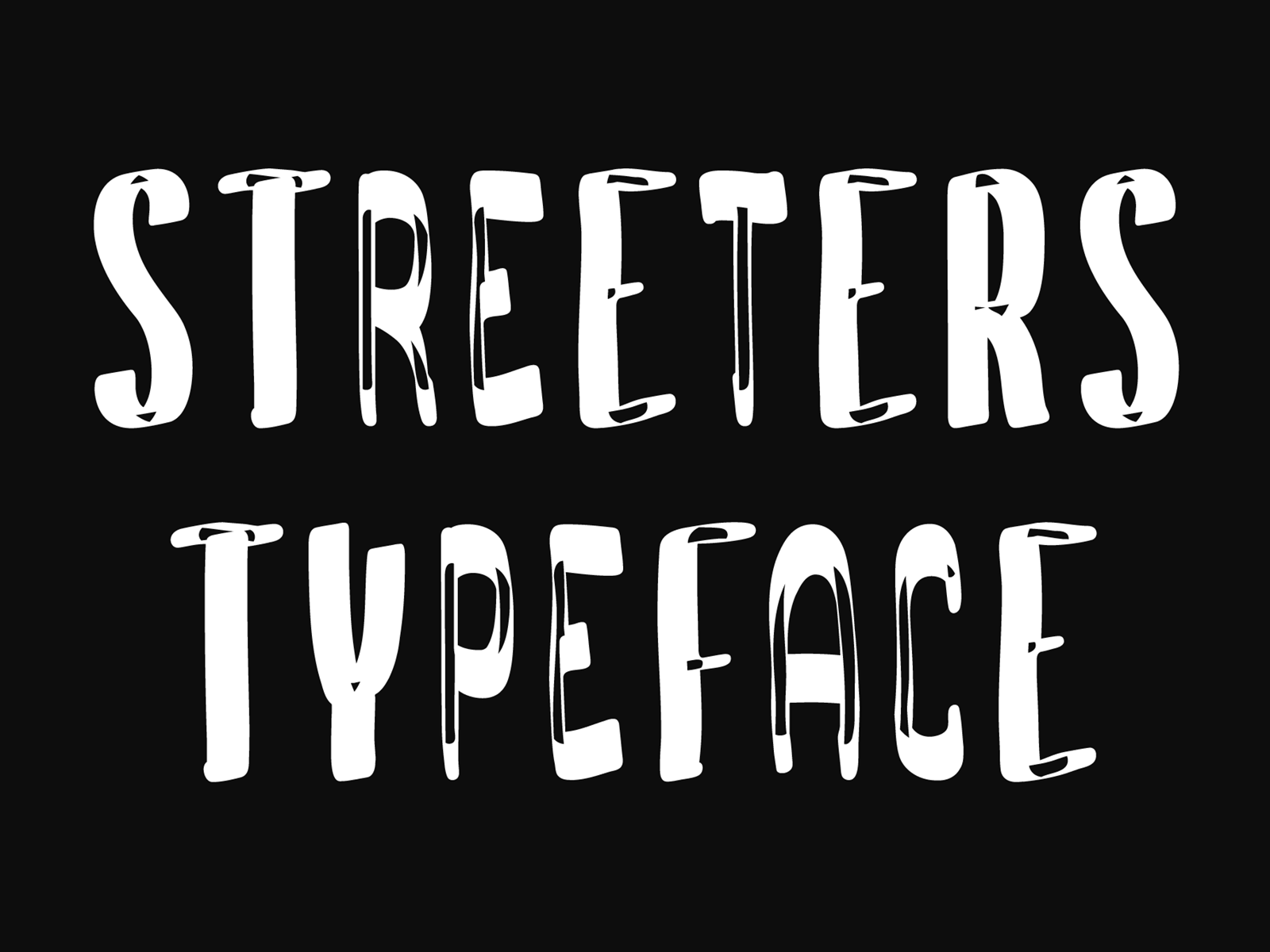
STREETERS Typeface
A font created for a specific project, where one of the assumptions in creating it was to combine the appearance of a manual brush, liquid paint but also a spatial effect.
Uppercase and lowercase letters create a slightly different effect with the same character height. They are created in such a way that, in addition to writing with one letter case, it is also possible to mix and create many different combinations of uppercase and lowercase characters, for example, a unique look for the same repetitive words.
The font is best for works where a non-standard, strong and distinctive form of communication is needed.